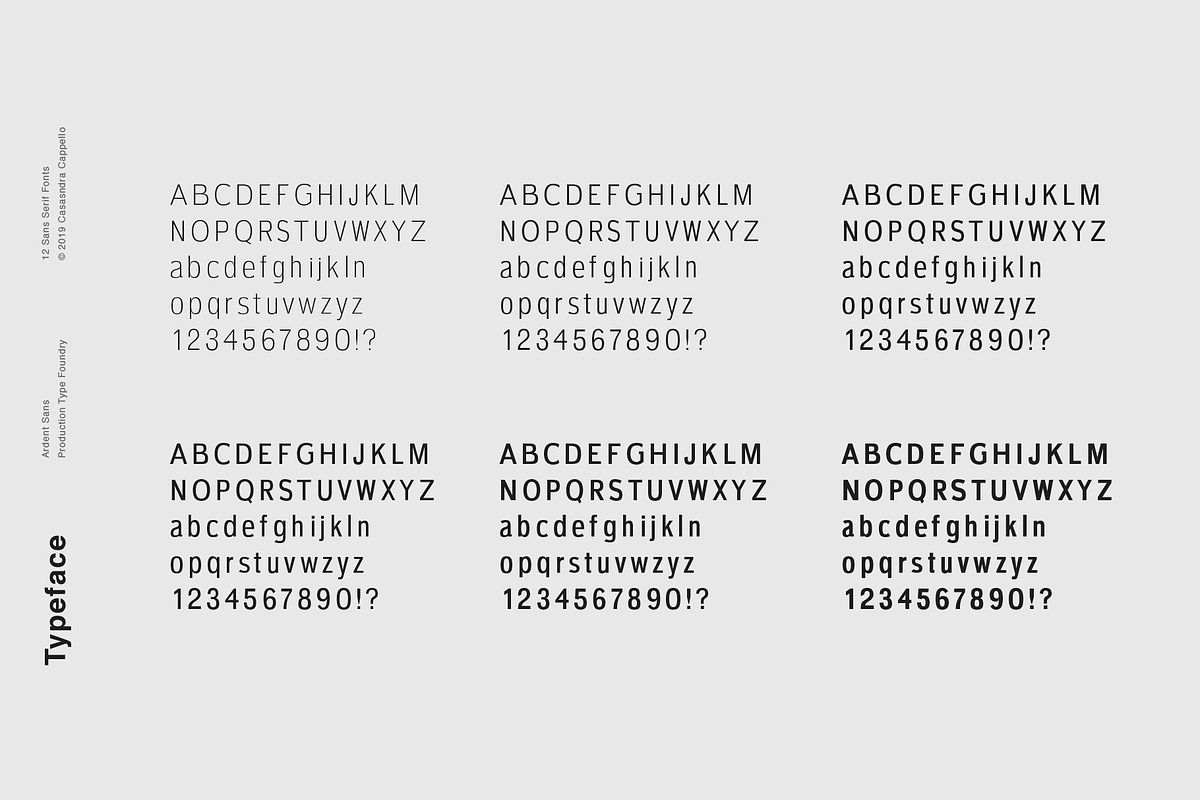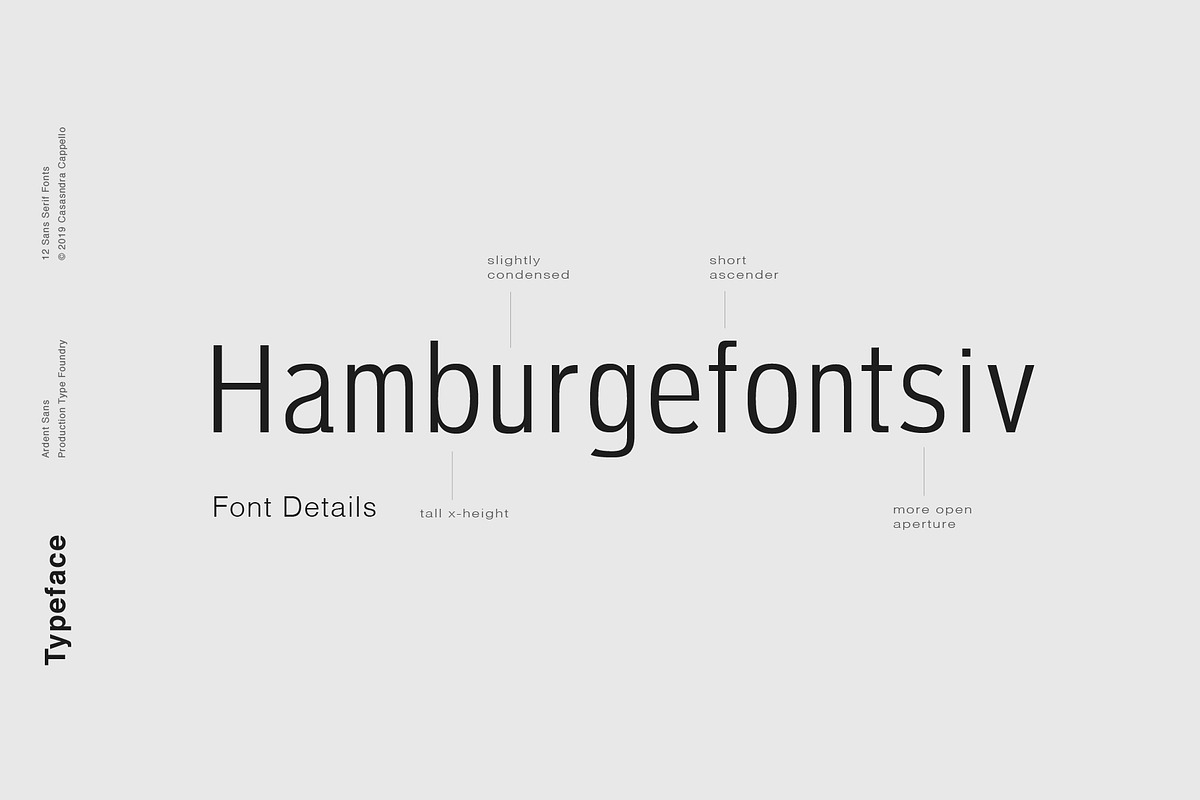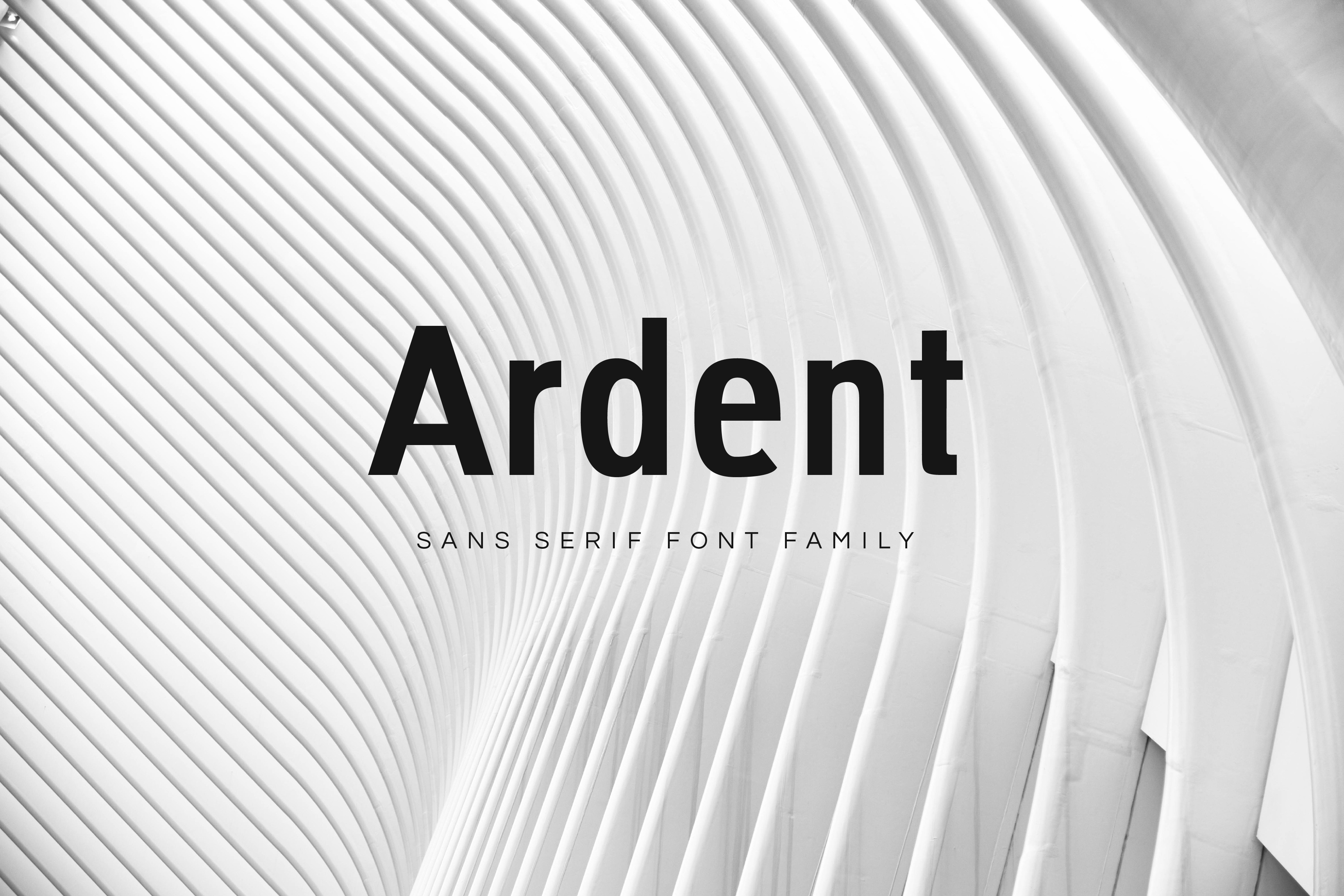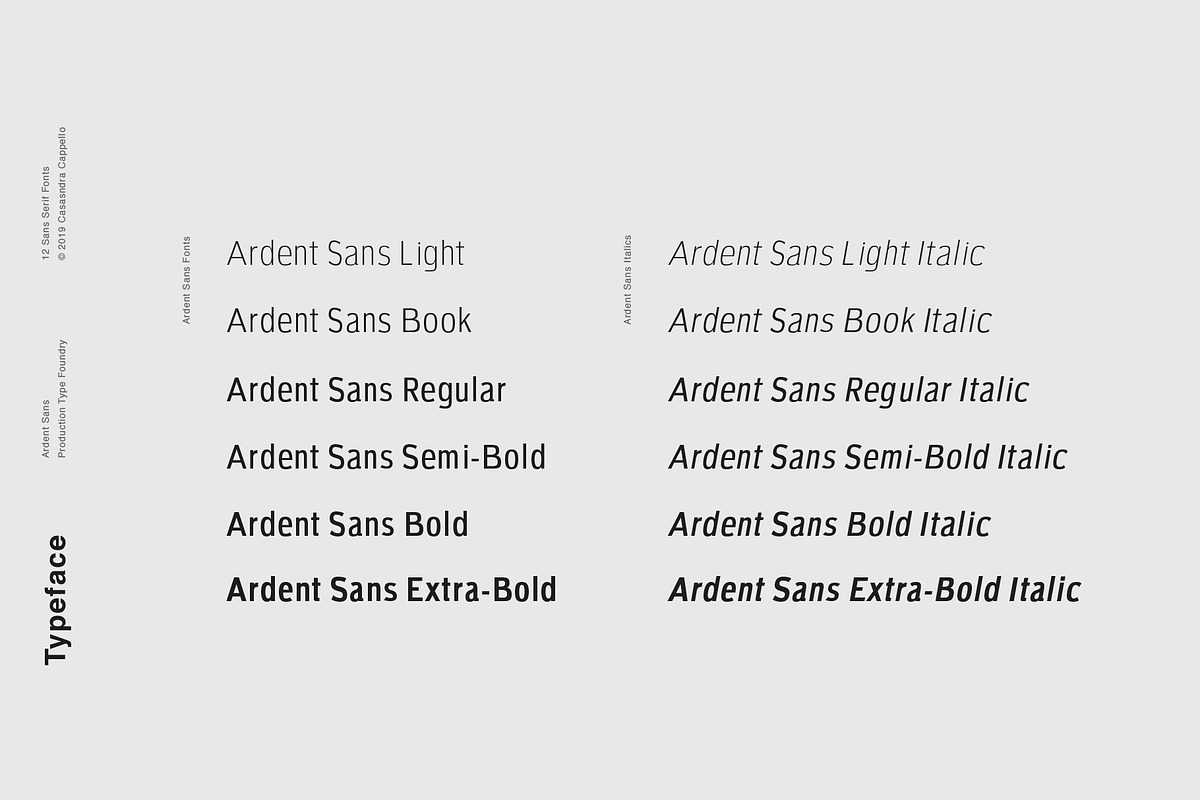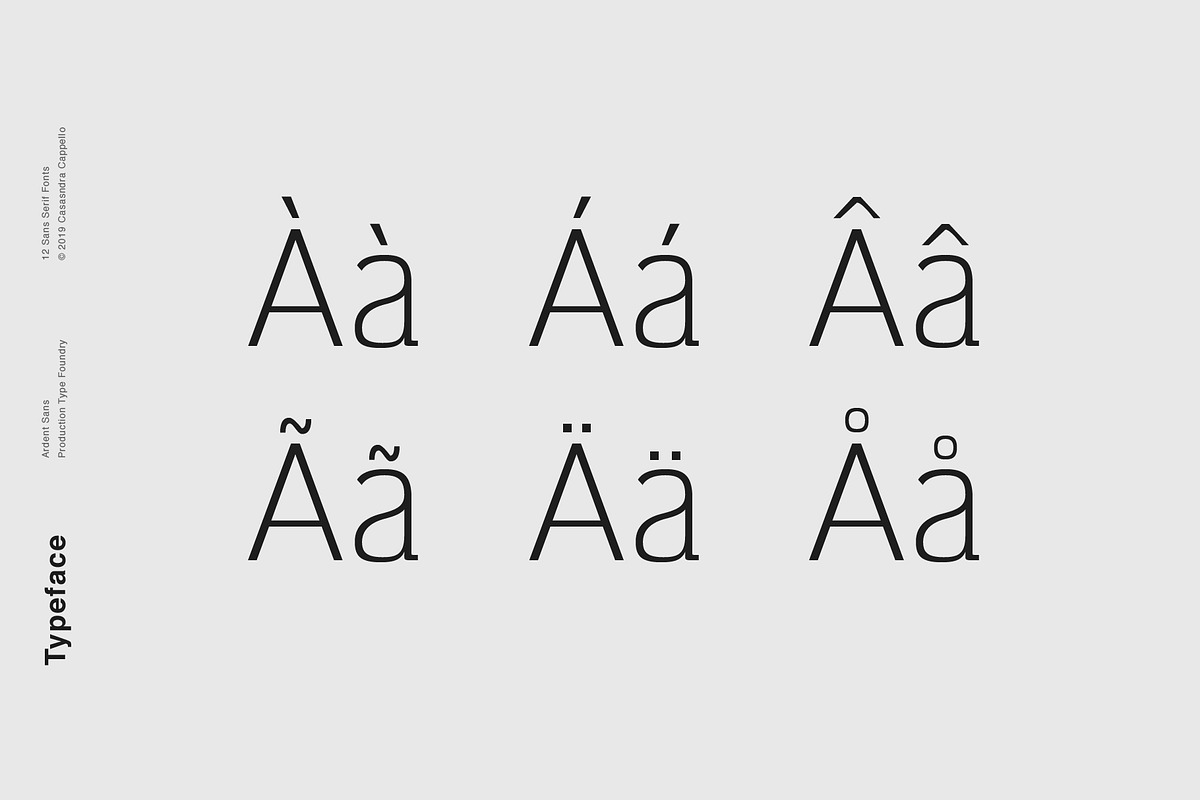
Ardent Sans - Modern Font Family
Ardent Sans is a minimal, modern sans serif typeface. This slightly condensed font can be used for both headers and body copy. This font family includes all Latin characters (including accents), numbers, special characters, and punctuation.
Ardent Sans includes twelve fonts in OTF format: six weights and six italics.